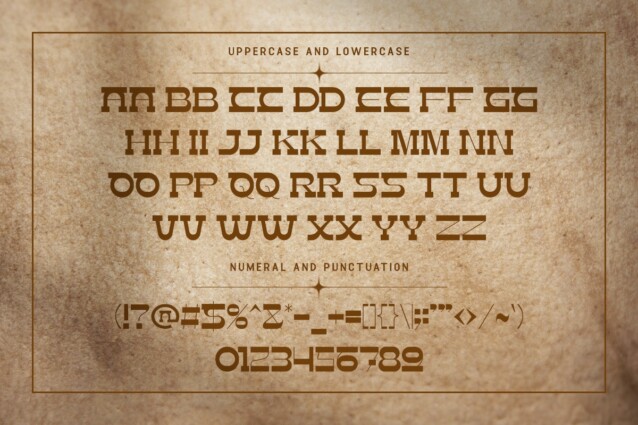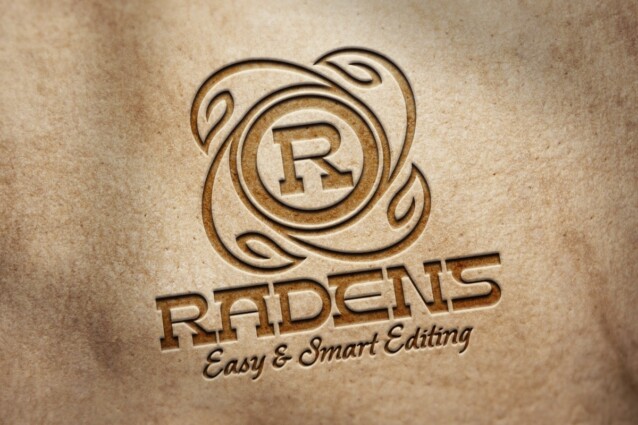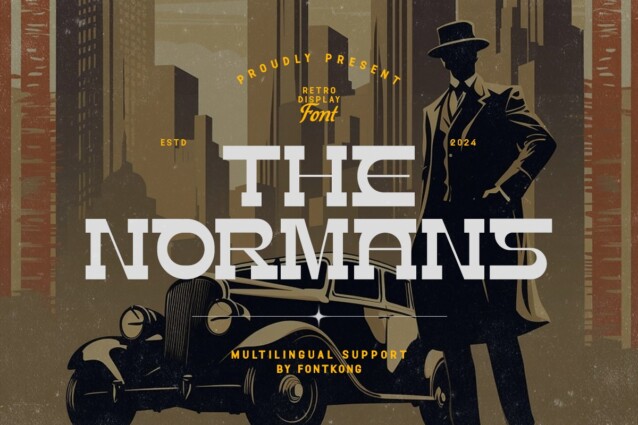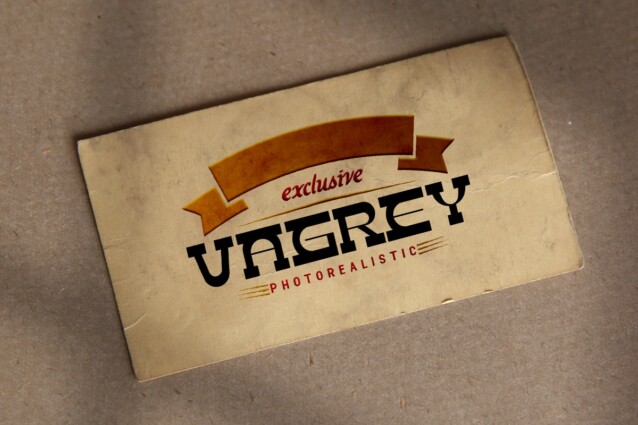
The Normans Font
The Normans Font is a classic, retro typeface manufactured by Kong Font. Bold yet delicate, perfect to be used as a display font. This font is a display font that is modern, simple, and elegant. It can also be used as a bold and modern font.
The Normans Font has many matches when combined with the product to be used. Fashion brand tags such as clothing will work well with this typeface. There is no need to add excessive pictures and ornaments because The Normans Font has presented its identity where a simple yet elegant impression radiates. The Normans is a typeface that can be used as digital fonts and print fonts. This font can be used as a title that appears first in intro videos that catch the viewer’s attention at a first impression.